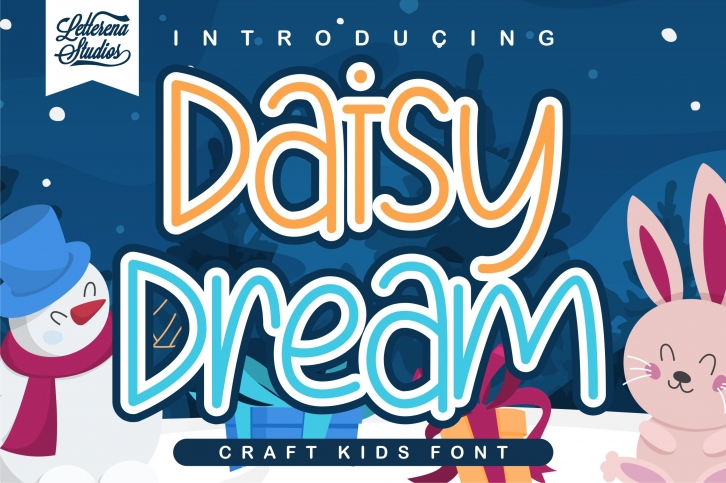
Daisy Dreamu00a0- Crafting Kidsu00a0Font Download
Daisy Dreamu00a0- Crafting Kidsu00a0 is a beautiful font that was designed by Letterena Studios. It's a great choice for designers and creatives who need such a font. It was released on October 18, 2020 and the file size is 9.45 MB. Daisy Dreamu00a0- Crafting Kidsu00a0 may give a more youthful, expressive and casual look to your project. It is a very beautiful, refined, elegant, and high-quality font.